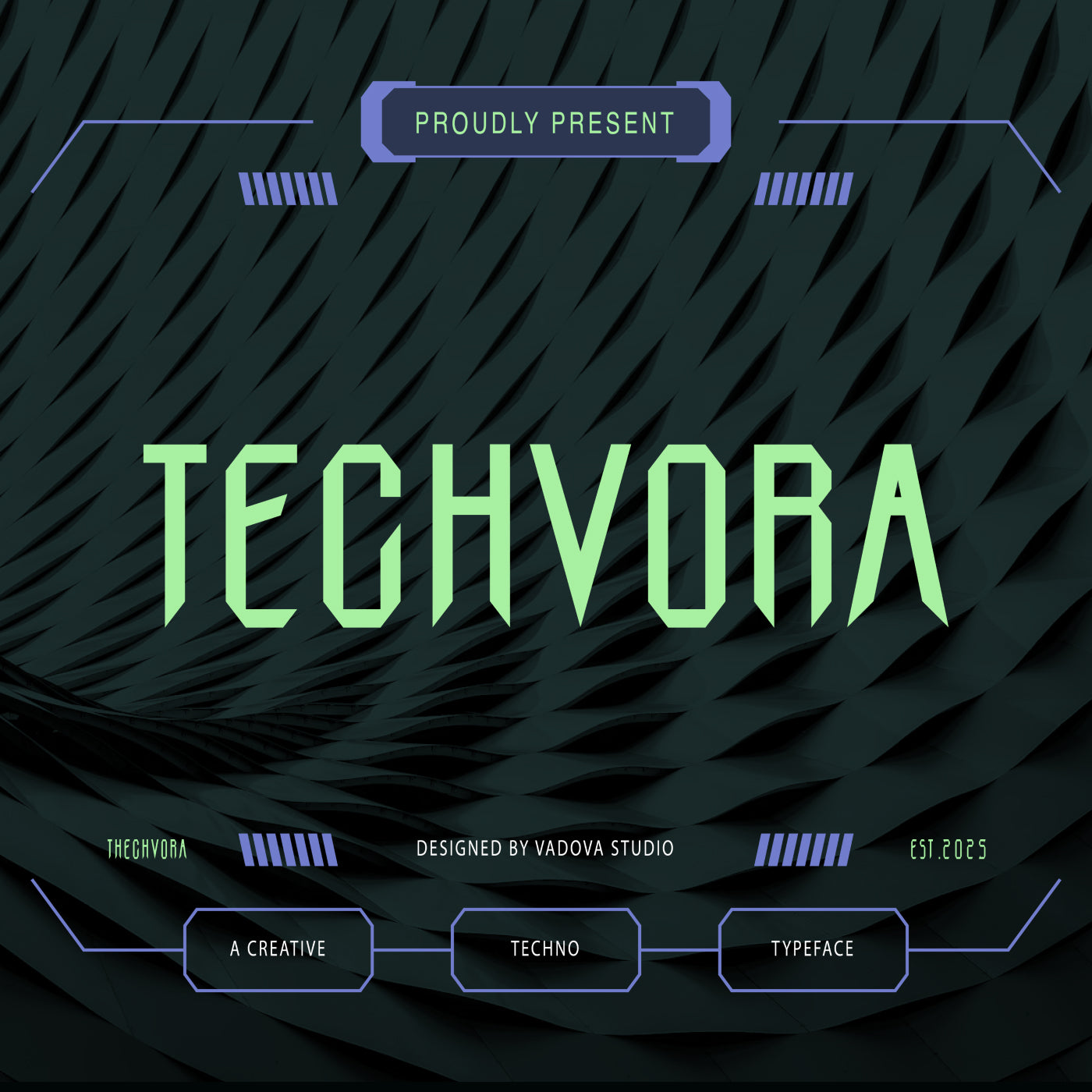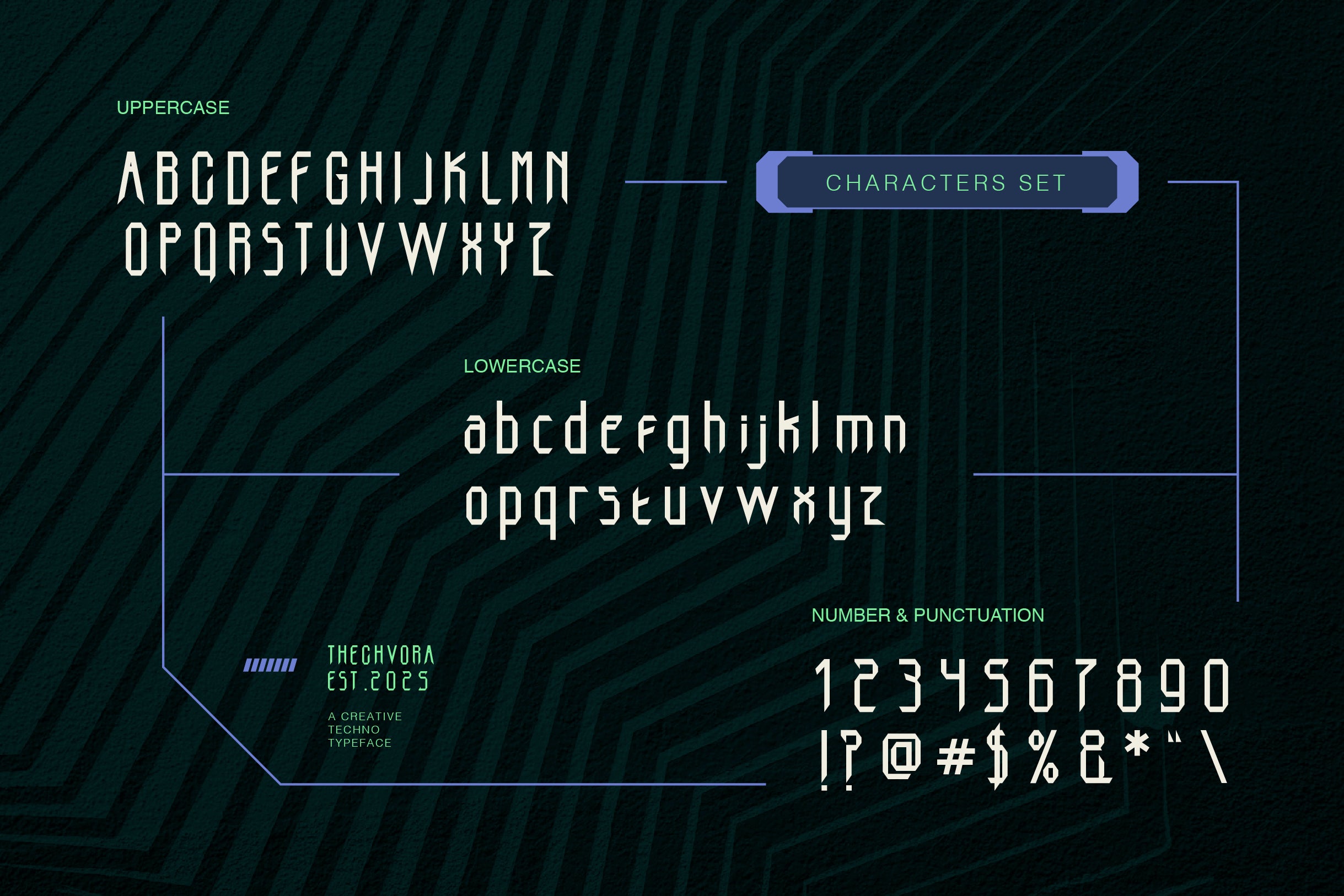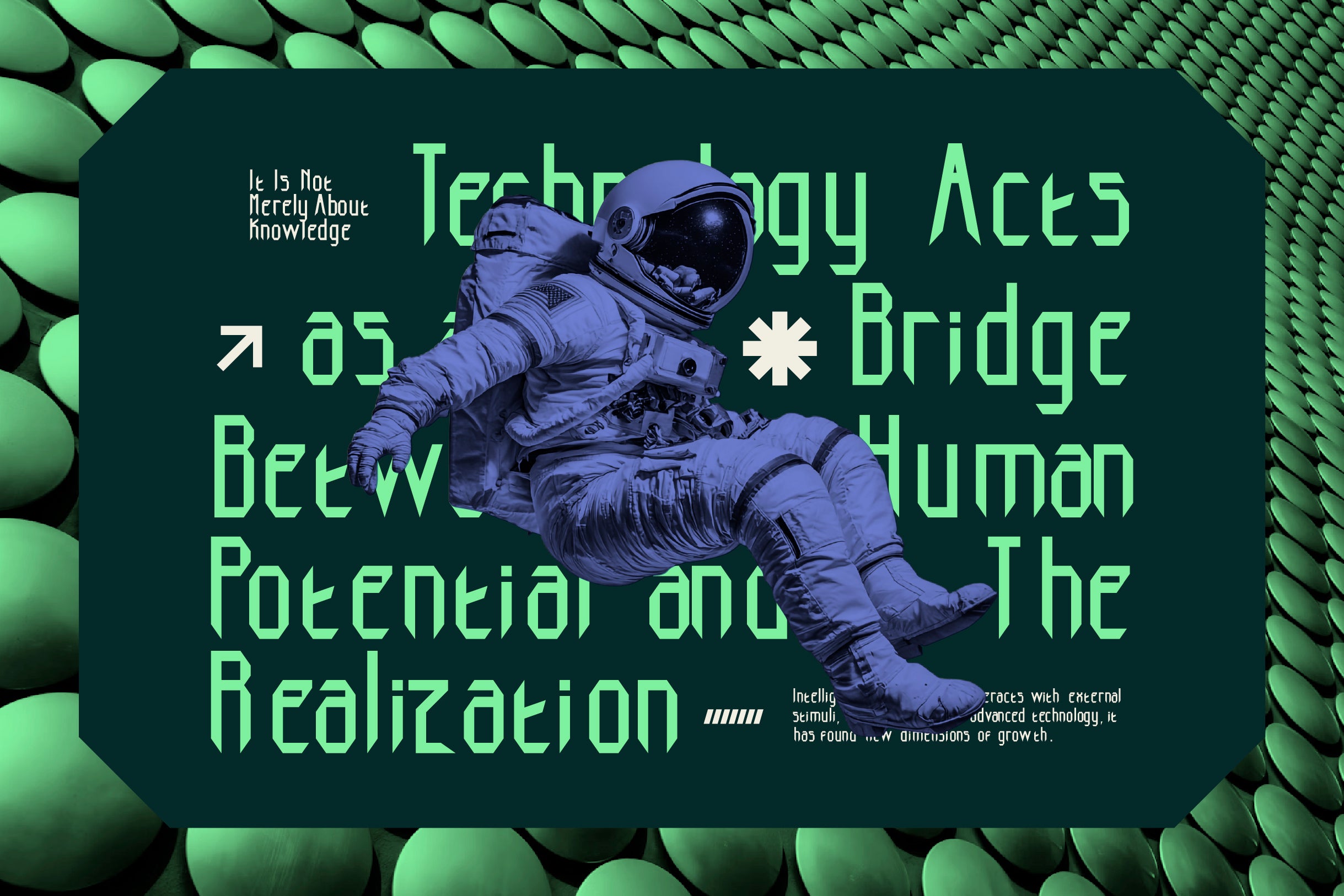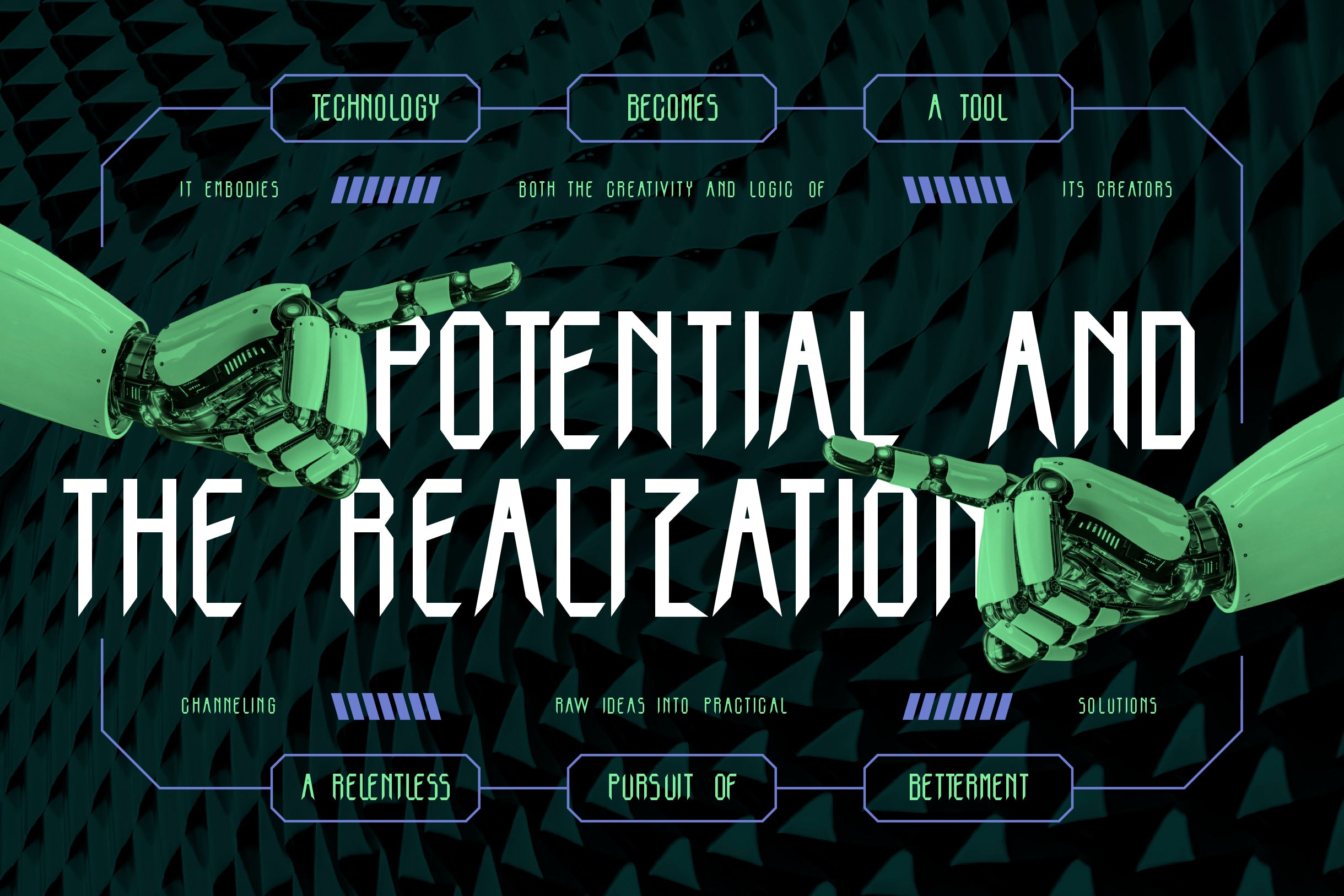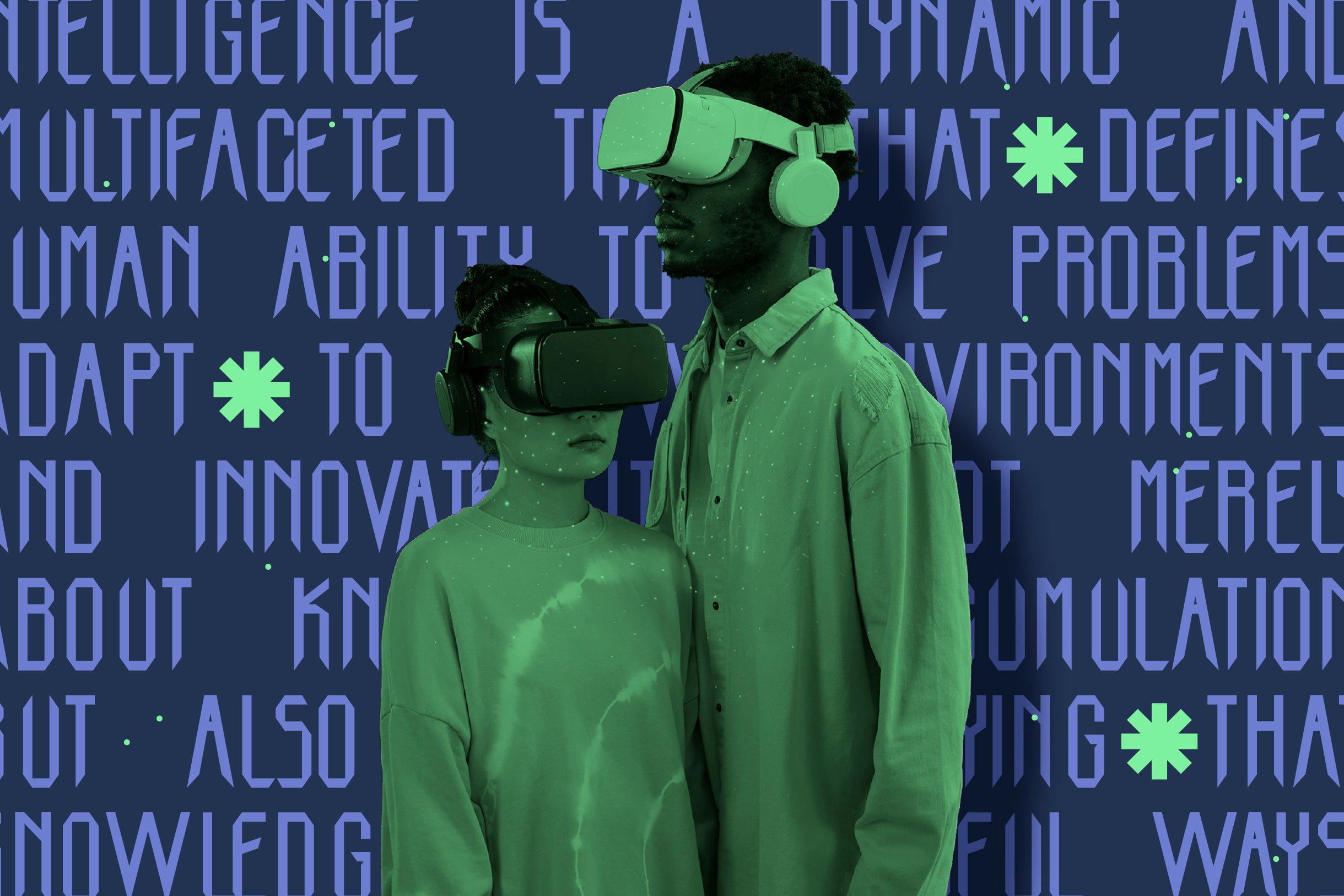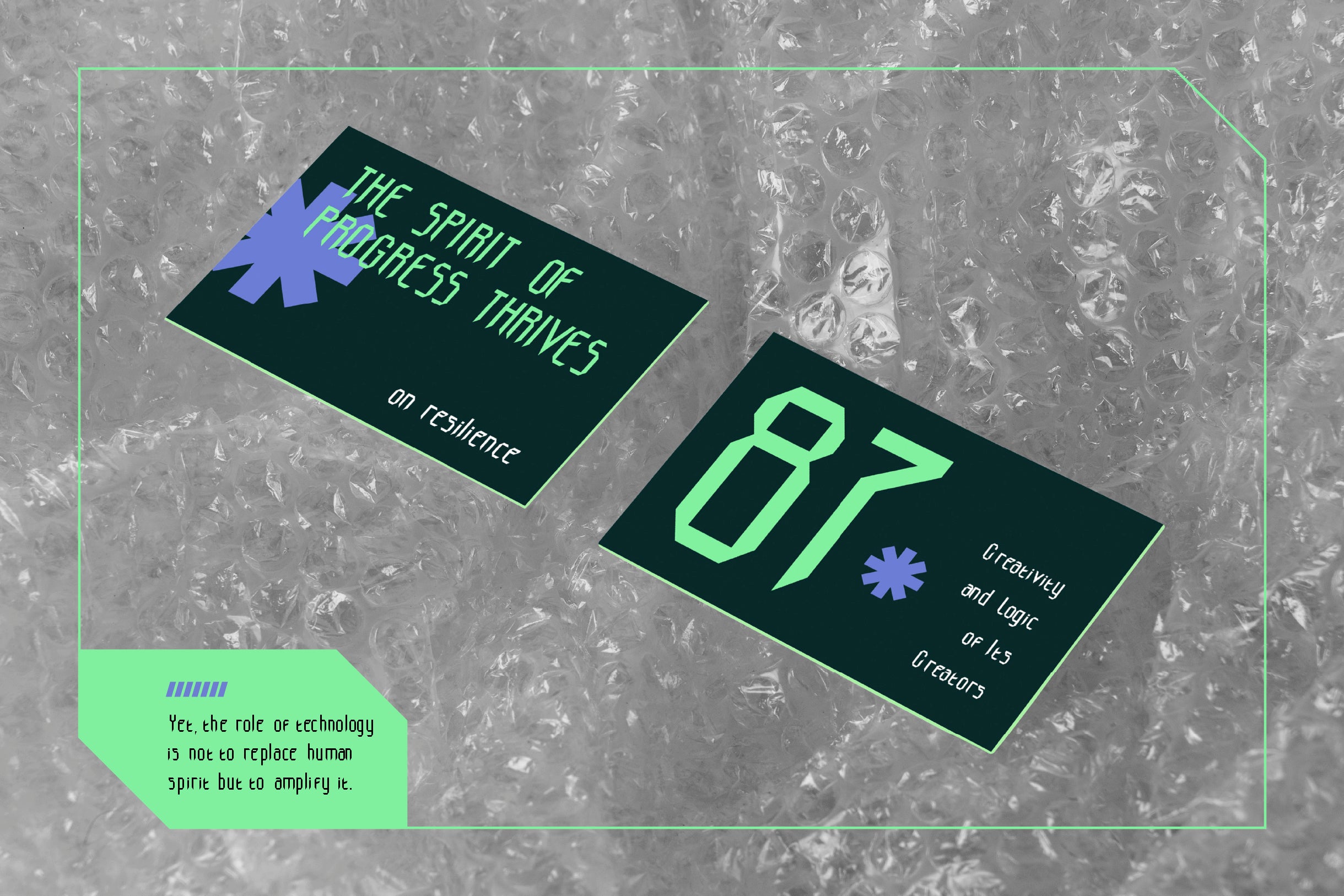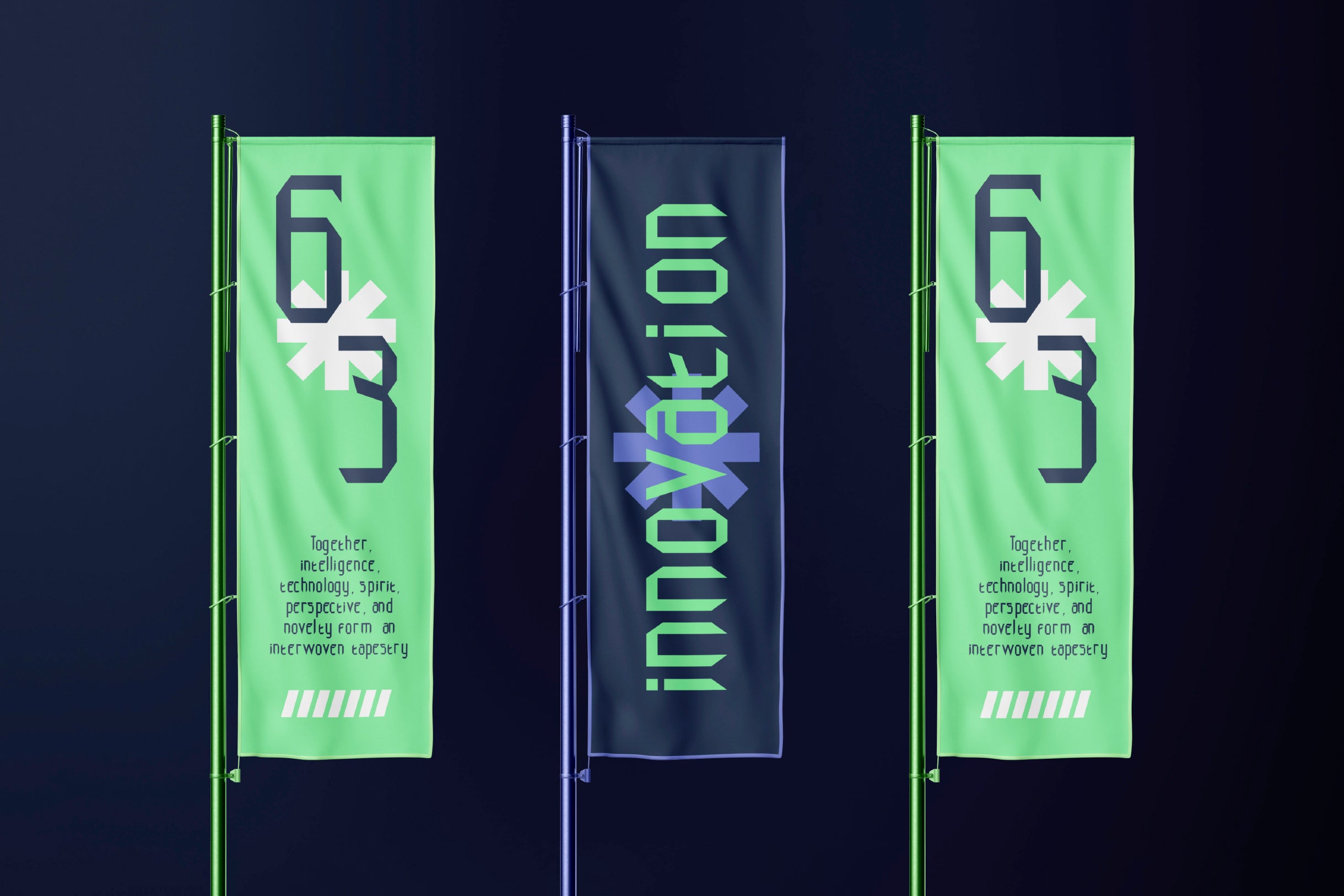
Techvora Creative Techno Typeface Font
Techvora Creative Techno Typeface Font is a sharp, angular techno typeface designed for futuristic interfaces, sci-fi branding, esports visuals, and modern cyberpunk layouts. Its tall condensed proportions, pointed edges, and digital-coded rhythm make it ideal for UI titles, energy drink packaging, tech product branding, EDM posters, movie trailers, and gaming overlays. The font includes uppercase, lowercase, numerals, and punctuation, and is available in OTF, TTF, and WOFF formats for both print and screen design.
Relevance and Use Cases is perfect for sci-fi headline typography, futuristic logo design, gaming interface text, motion graphic titles, digital tech branding, cyberpunk posters, streaming overlays, esport team identity, web UI display type, music festival visuals, and product packaging for tech gear & hardware.
The Techvora Creative Techno Typeface Font is a sharp, angular typeface designed for futuristic and digital applications. It includes uppercase and lowercase characters, numerals, and punctuation, and is available in TTF, OTF, and WOFF formats for versatile use in both print and screen design.